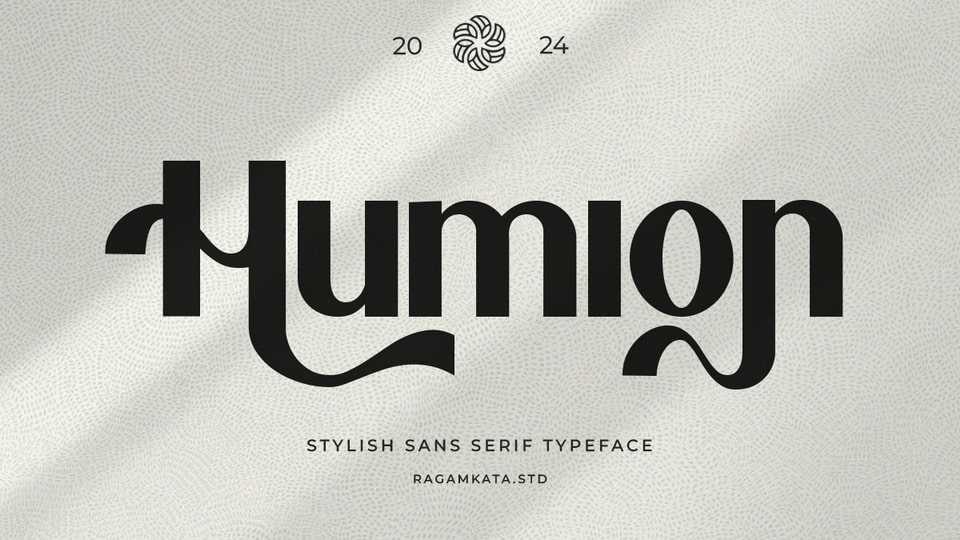
Download Humion font, a stylish sans serif typeface that comes with a modern look. An elegant font, Humion is perfect for corporate identities, websites, publications, titles, books.